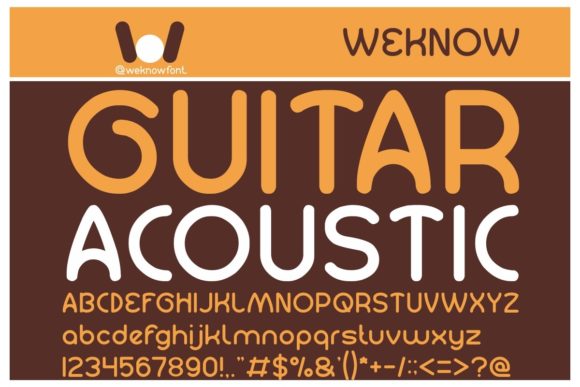
**Unleash the Rhythm of Your Creativity with Guitar Acoustic Font: The Perfect Harmony for Your Digital Presence**
In the realm of digital expression, where every word dances across the screen, the font you choose becomes the maestro that sets the rhythm and tone of your message. Introducing Guitar Acoustic Font, a captivating display font that will strum the chords of your creativity and make your online presence resonate with authenticity.
Picture yourself scrolling through an endless stream of digital content, longing for something that truly captures your attention. Suddenly, you stumble upon a captivating Instagram bio adorned with the mesmerizing curves and sharp edges of Guitar Acoustic. It's like a musical interlude that draws you in, promising a journey into a world of creative possibilities.
This font is not just a collection of letters; it's a symphony of visual elements that evokes a sense of warmth, authenticity, and timeless appeal. Each character dances across the screen, carrying with it the rhythm of handwritten notes and the soulful strumming of acoustic guitars.
With Guitar Acoustic Font, you can transform your online presence into a stage where your words become the stars. Let the smooth curves and sharp angles of this font guide your creativity, creating a captivating symphony of visual storytelling that will resonate with your audience.
But Guitar Acoustic Font is not just about aesthetics; it's also a practical choice for any online creator looking to make a lasting impression. Its clean lines and effortless readability ensure that your message will be heard loud and clear, whether you're crafting an engaging social media post, designing a captivating website, or simply adding a touch of personality to your personal brand.
So, whether you're an aspiring artist, a seasoned designer, or simply someone who appreciates the beauty of well-crafted fonts, Guitar Acoustic Font is the perfect choice to elevate your digital presence and make your words sing.